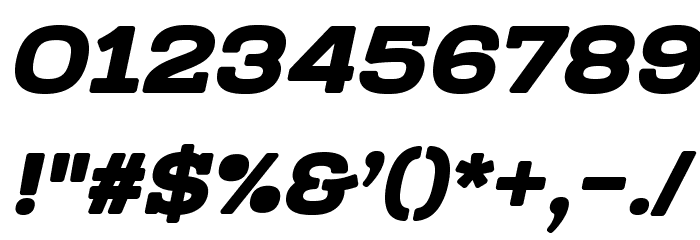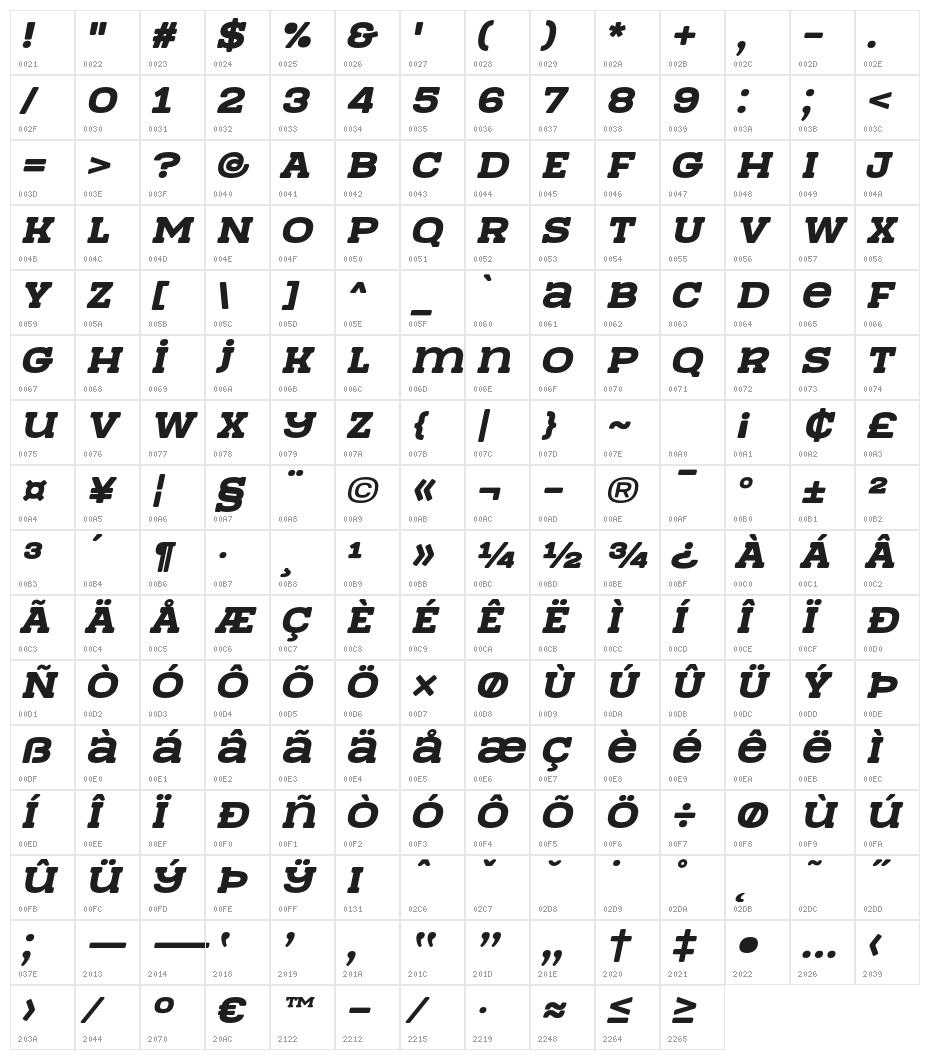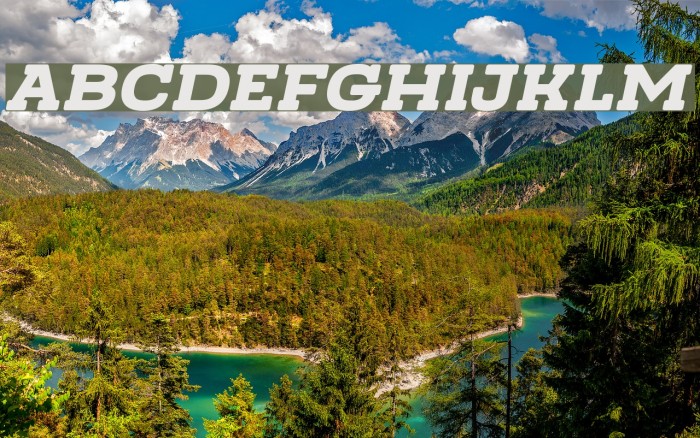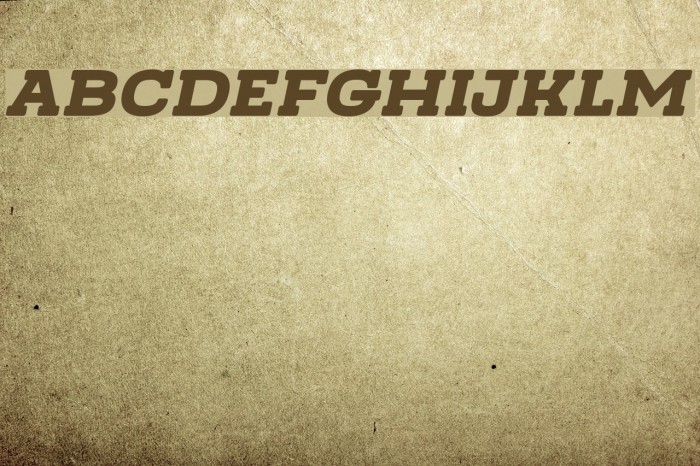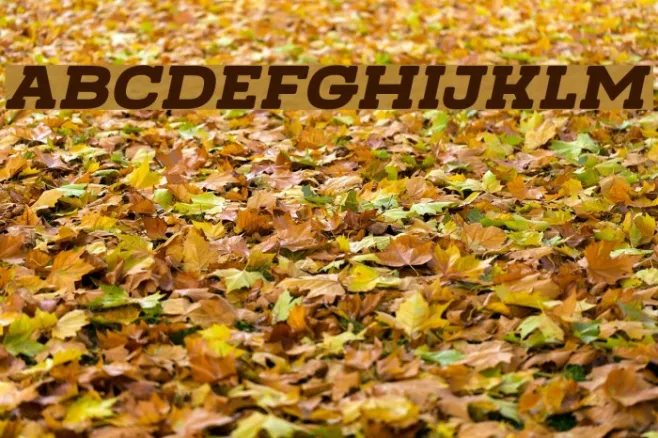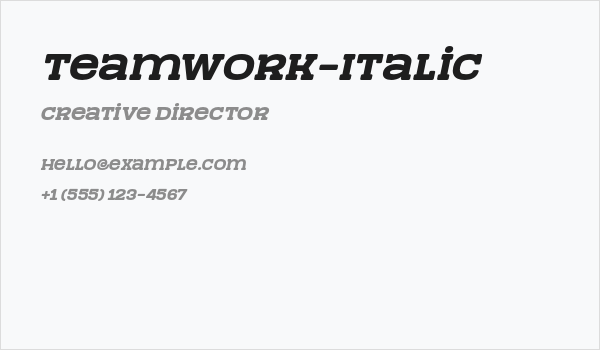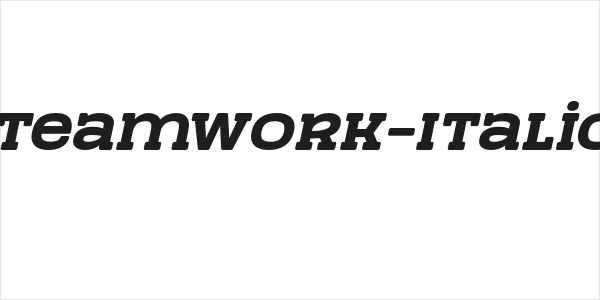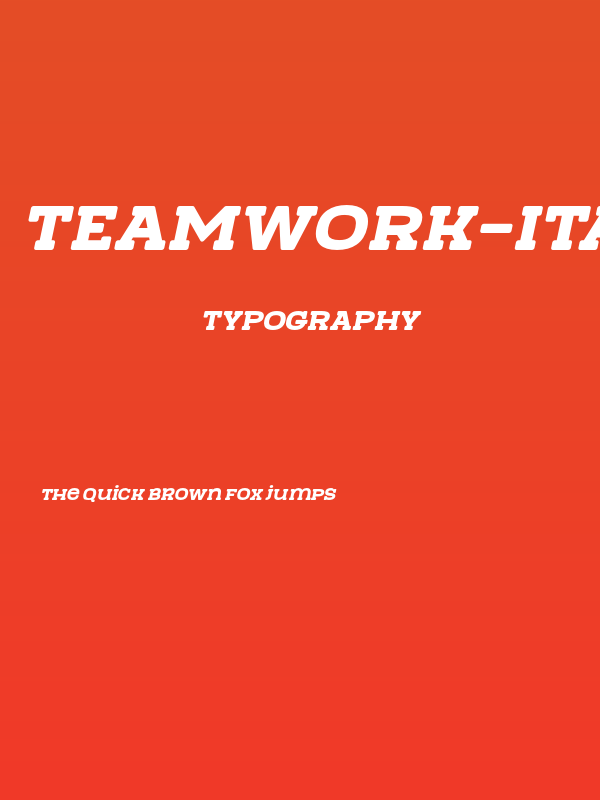
TeamWork-Italic Font
TeamWork-Italic Description
This font features a bold and dynamic italic style, characterized by its strong and confident strokes. The letters are slightly slanted, giving a sense of motion and energy. The uppercase and lowercase letters maintain a consistent weight, providing a uniform appearance. The numerals are clear and bold, ensuring readability. Special characters are well-defined, adding versatility to the font. The overall design is modern and impactful, making it suitable for various creative applications.
Proposed ProjectsIdeal for branding, advertising, posters, and headlines where a bold and energetic impression is desired.